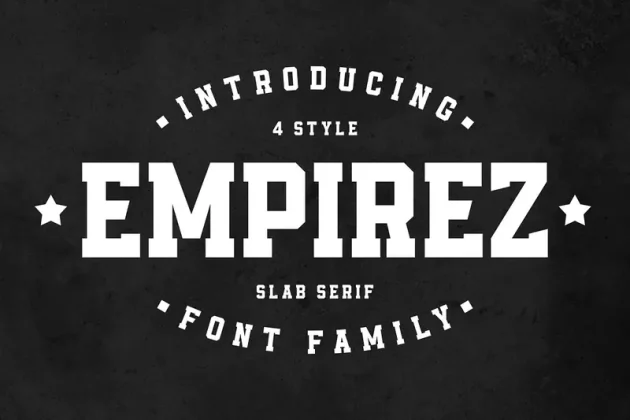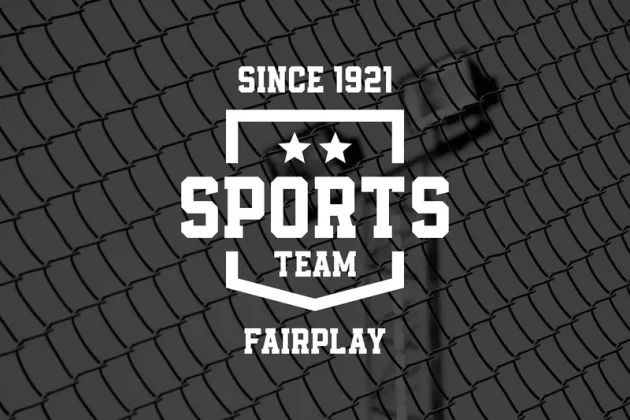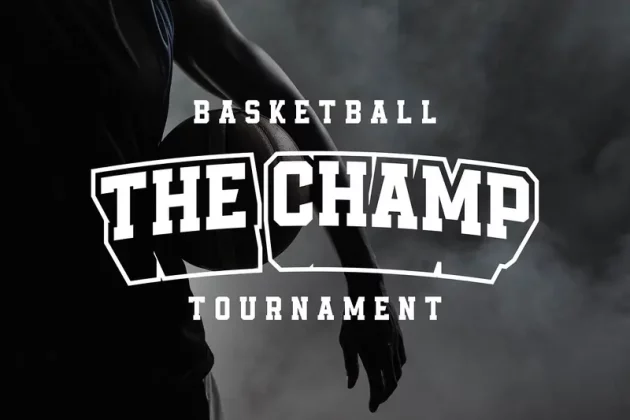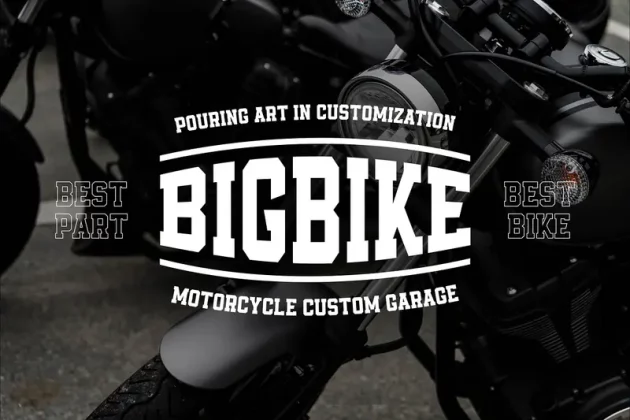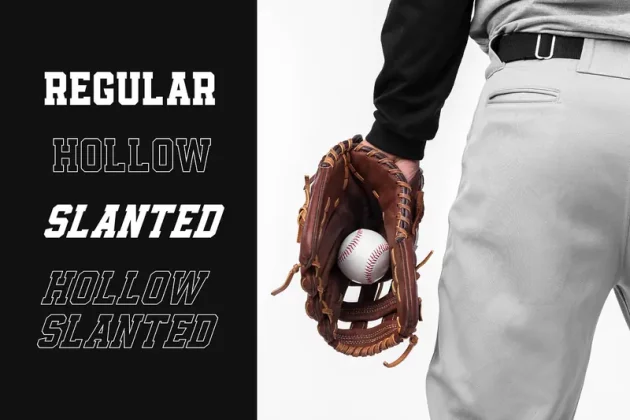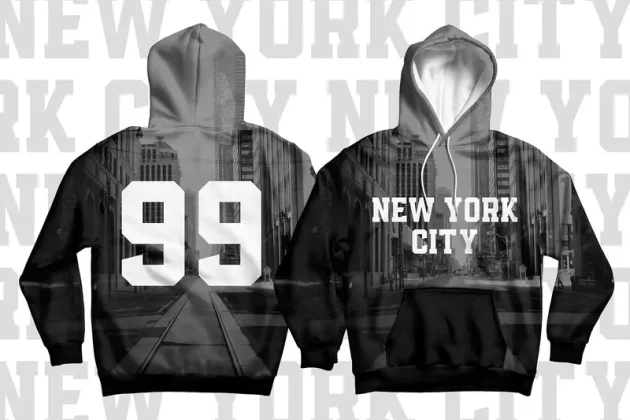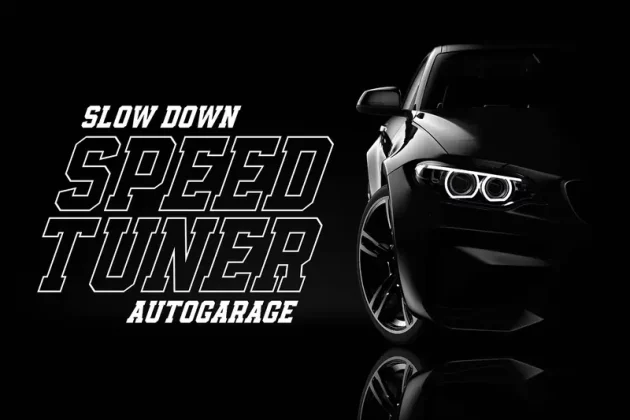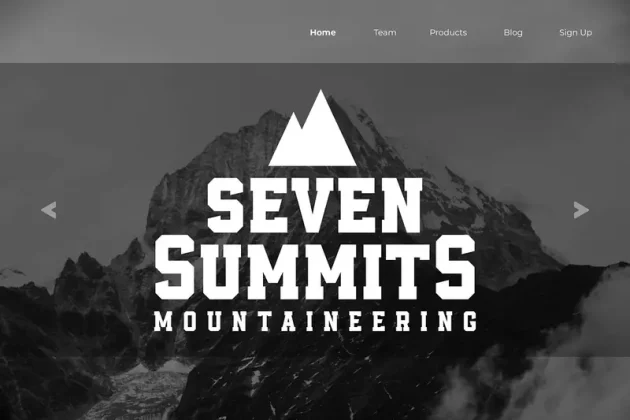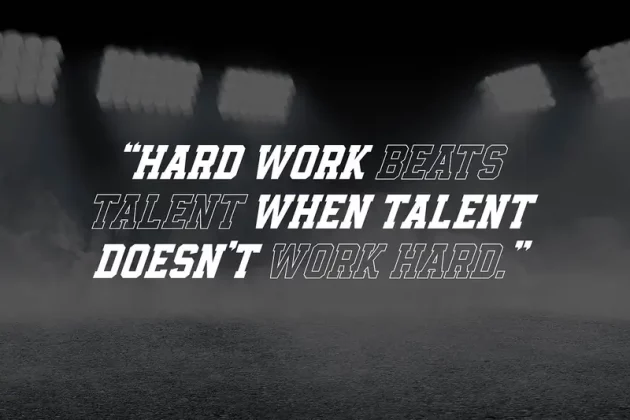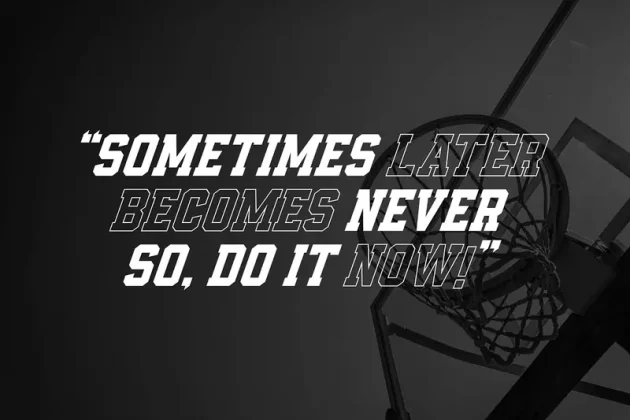
Empirez – Slab Serif Font
About Empirez – Slab Serif Font
Introducing A display font that gives you strong and bold typography. Empirez – Slab Serif Family with 4 Style is an adaptation and progression Empirez – Slab Serif Family, giving the user some cool options when creating artwork. This font perfect for both print and digital, in headlines for editorial, posters, banners, websites, apparel, packaging, logos or magazines.